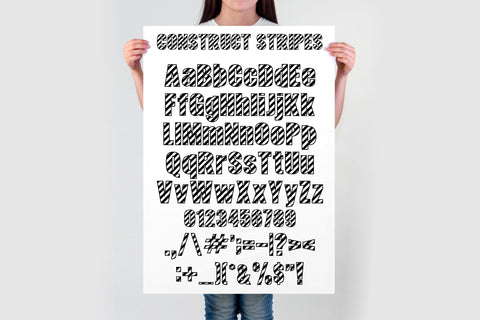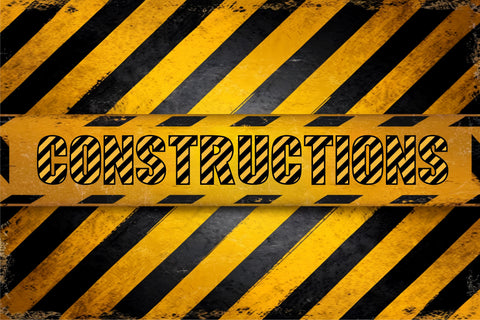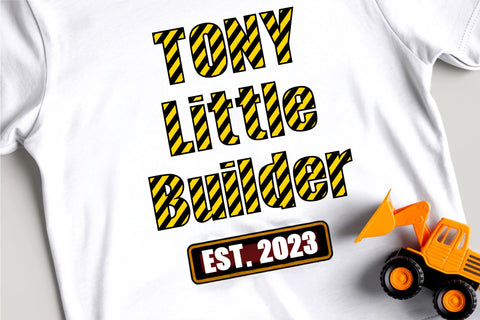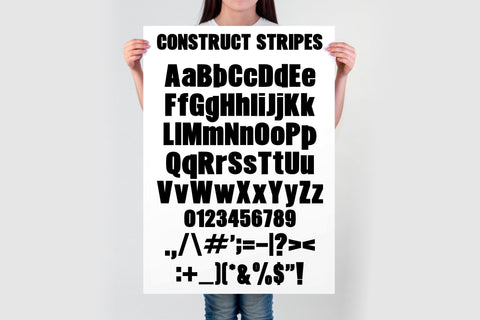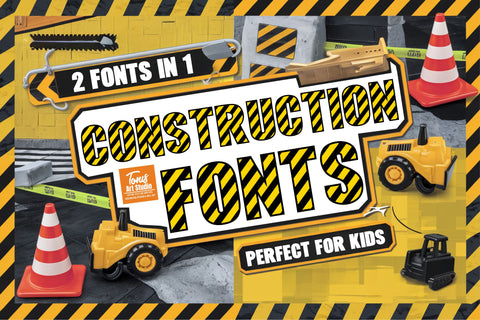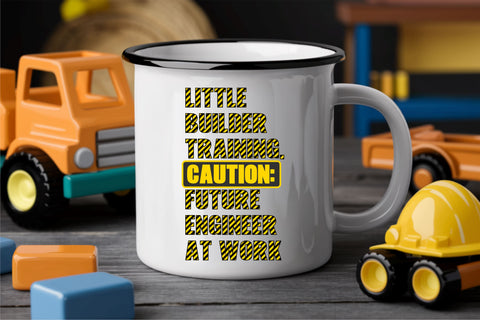
Construction Font SVG | Kids Alphabet | Under Construction
The Construction Font is a bold, creative typeface inspired by construction sites! Perfect for kids' birthday themes, construction parties, vinyl decals, t-shirts, and engineering designs. Whether you’re making signs, banners, invitations, or personalized gifts, this font is great for Cricut, Silhouette, Canva, Photoshop, and Procreate.
With its caution stripe style and bold block lettering, this font is ideal for kids’ builder-themed projects, under-construction party decor, and construction-inspired merchandise. Great for DIY crafting, printables, and sublimation.
Construction Font – 2 Styles (Construct Stripes & Construct Block)
Perfect for t-shirts, mugs, posters, signs, and kids' decor